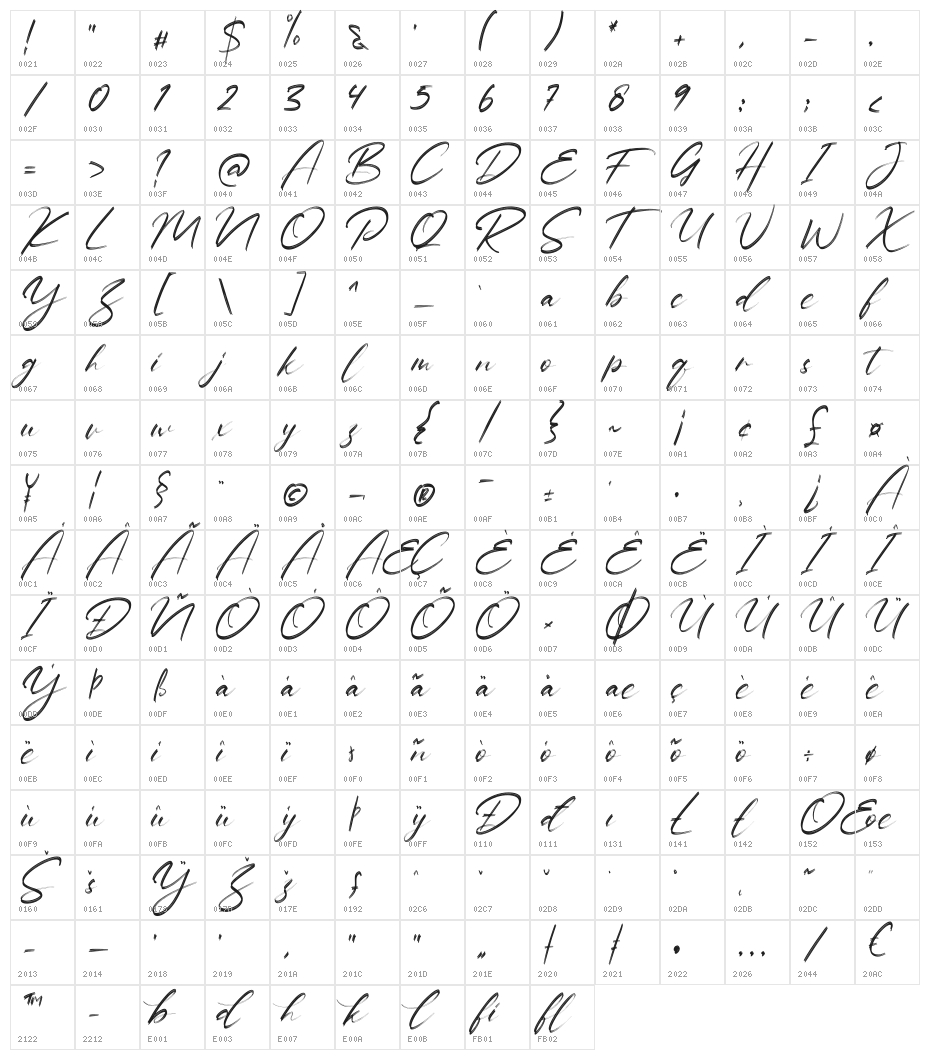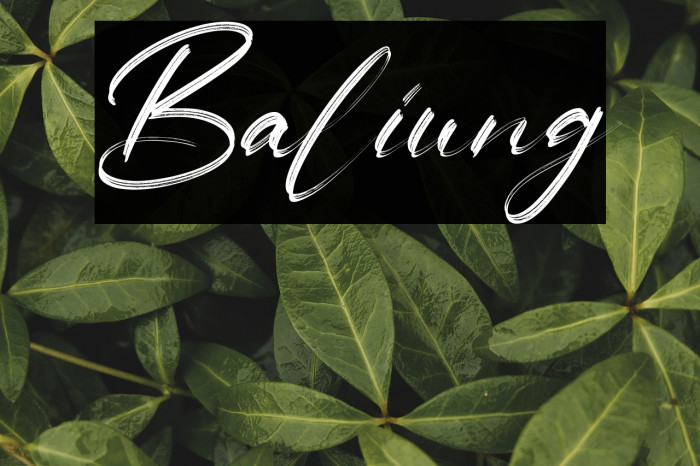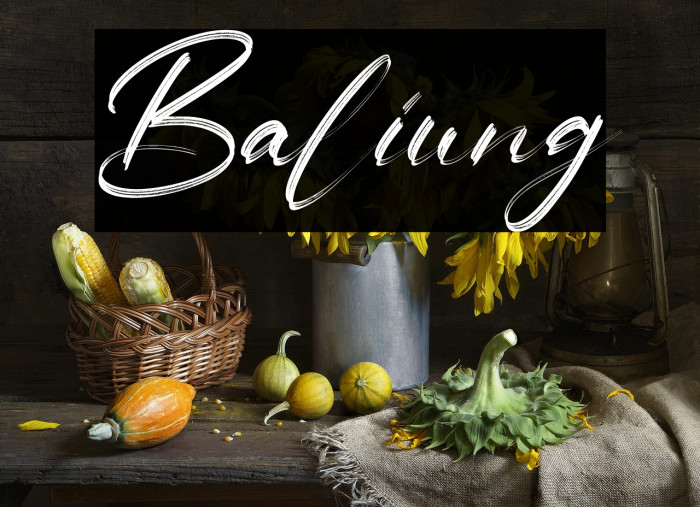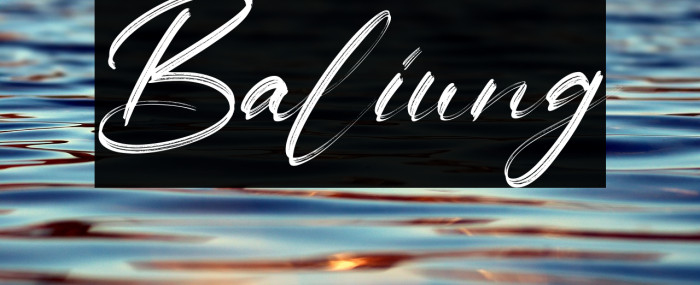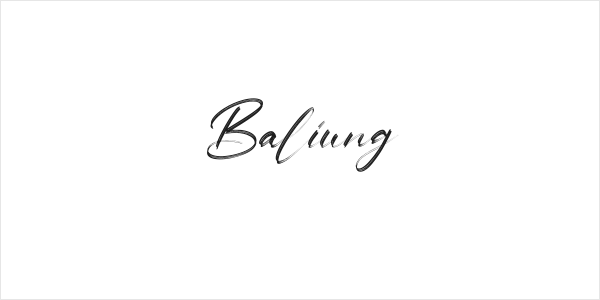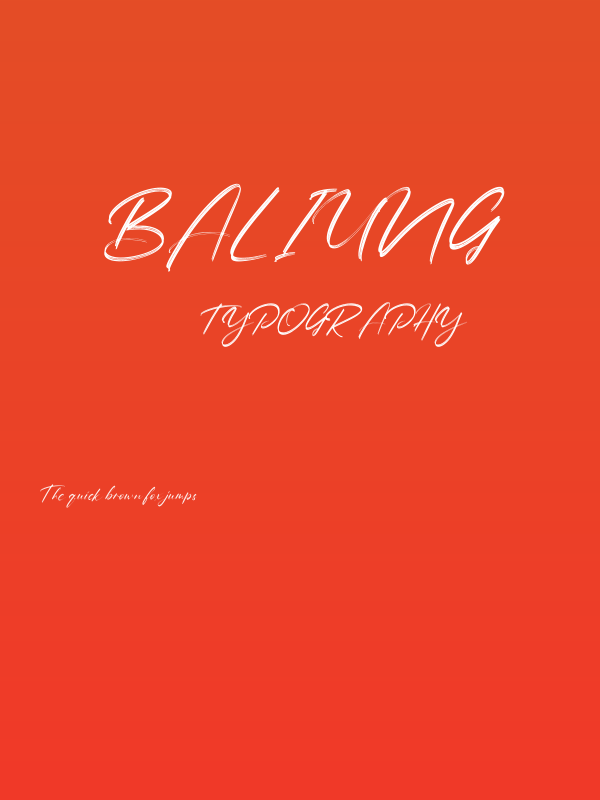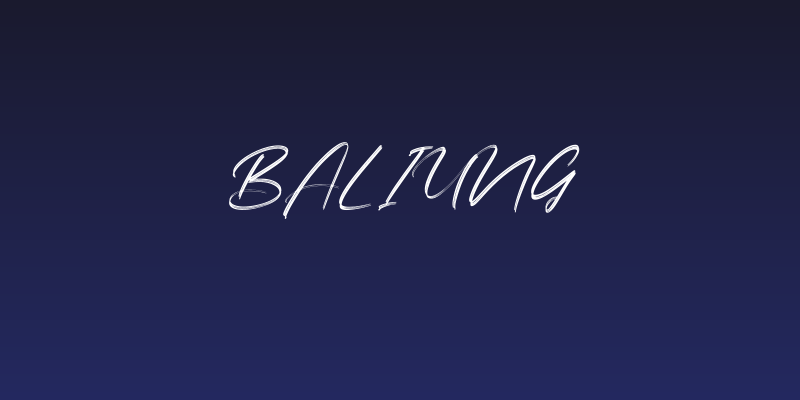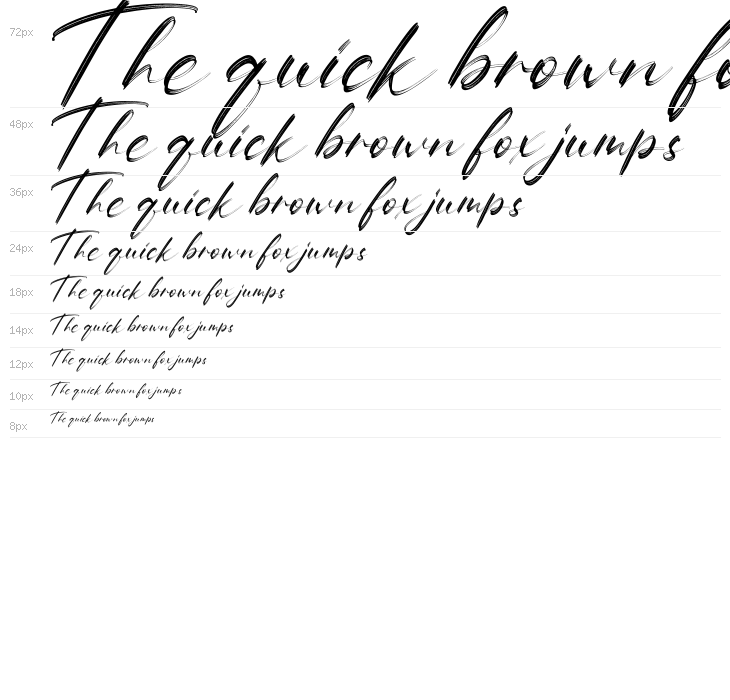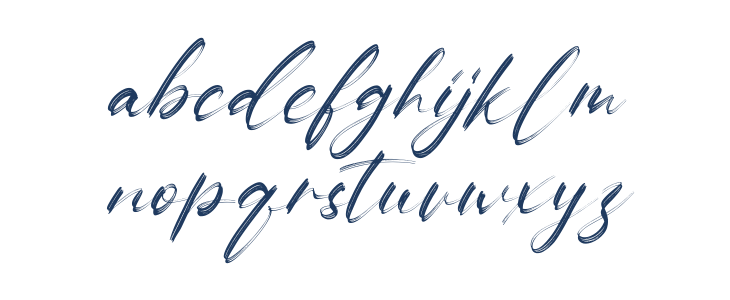
Baliung Font
Baliung Description
This font exhibits a dynamic and expressive handwritten style, characterized by its fluid and cursive strokes. The letters are connected, creating a seamless flow that mimics natural handwriting. The strokes vary in thickness, adding a sense of movement and energy. The uppercase letters maintain a consistent height, while the lowercase letters feature elegant loops and curves. Numbers and special characters are designed to match the overall aesthetic, ensuring cohesion across all elements. This font's artistic flair makes it suitable for creative and informal applications.
| Proposed Projects | Ideal for invitations, greeting cards, personal branding, and artistic projects. |